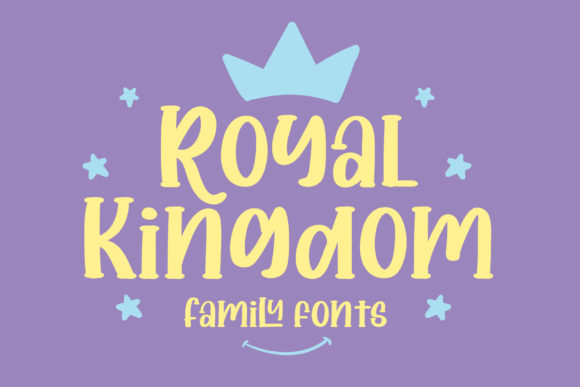
Introducing the Royal Kingdom Font, the display font that oozes playfulness and warmth. Created by Eifets, this font is not just a collection of letters, but a burst of joy that transforms your words into a visual extravaganza.
Step into a World of Whimsy:
With its quirky and charming characters, Royal Kingdom Font invites you to embrace your playful side. Each letter dances across the screen, exuding a sense of easy-going friendliness that is simply irresistible. Let your imagination run wild as you create designs that capture the essence of fun and lightheartedness.
Crafting Unique Experiences:
Whether you're designing invitations for a family reunion, creating personalized greeting cards, or adding a personal touch to your digital projects, Royal Kingdom Font is your perfect companion. Its versatility extends beyond traditional uses; bring your presentations to life with a touch of whimsy or add a splash of fun to your craft projects.
Unleashing Your Creativity:
Royal Kingdom Font is not just a tool; it's an extension of your creativity. Let its quirky charm inspire you to think outside the box and explore new design possibilities. Whether you're a seasoned designer or just starting out, this font will ignite your passion and help you craft designs that make a lasting impression.
A Journey of Smiles:
With Royal Kingdom Font, you'll embark on a journey of smiles. Its playful nature is contagious, spreading joy and delight wherever it goes. Imagine the smiles on the faces of your loved ones as they receive a greeting card adorned with this charming font, or the gasps of awe from your audience as your presentation comes alive with its whimsical characters.